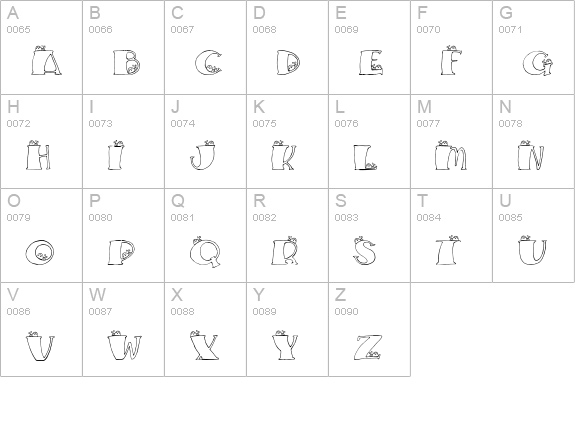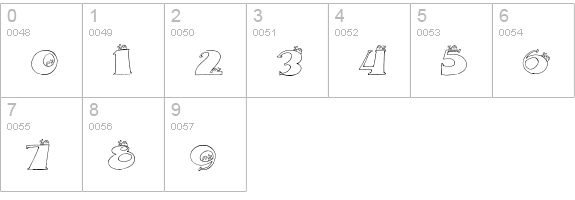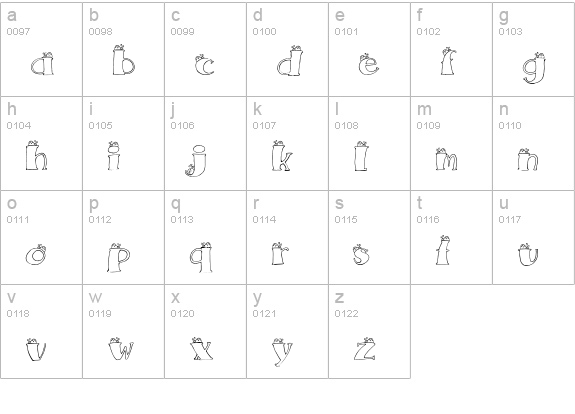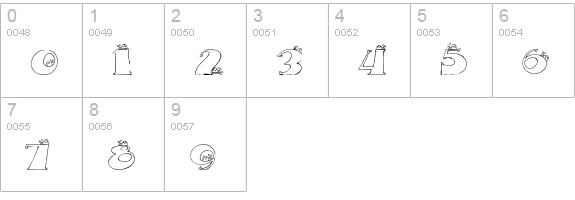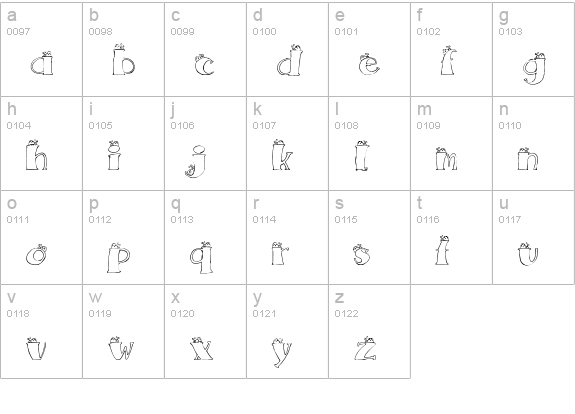
CK Baby Bug Font Details
Introducing CK Baby Bug font, a whimsical and playful typeface perfect for adding a touch of charm to your designs. This delightful font features cute bug-inspired characters that are sure to bring a smile to anyone's face. Whether you're working on a children's book, a greeting card, or a fun branding project, CK Baby Bug font will add a unique and joyful element to your creations. What's even better is that CK Baby Bug font is completely free to download at FontsMarket.com. Yes, you read that right - you can get your hands on this adorable font at no cost at all! So why wait? Head over to FontsMarket.com now and start using CK Baby Bug font to bring a sense of fun and whimsy to your projects.